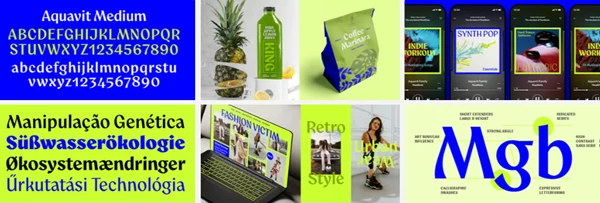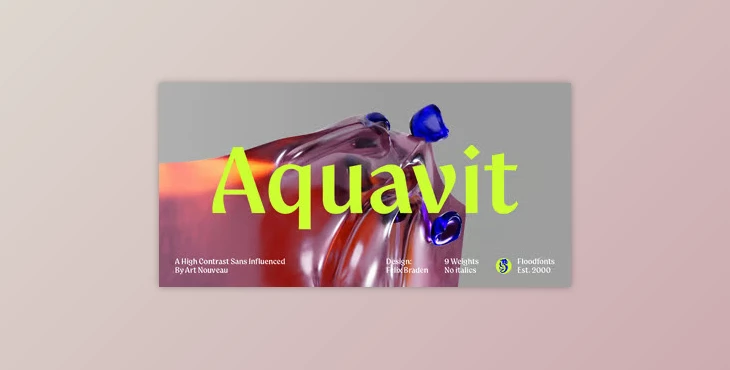
MyFonts - Aquavit Font Family:
Aquavit is the ideal display font family for brands that want to defy convention. A modern yet unexpected choice, Aquavit draws inspiration from the swirls of the Art Nouveau era and features a high-contrast sans serif. Therefore, it merges a contemporary, crisp and clean appearance with a vintage, nostalgic feel for an elegant, effective and hand-crafted experience.
In addition, the slightly top-heavy, quasi-calligraphy lends an air of grace and sophistication, making it perfect for any brand that offers luxurious lifestyle options. Whether in the beauty, fashion, jewelry, music, food and beverage, or home décor industry, this font family adds a subtle sense of self to any project that requires legitimacy to ensure your brand resonates with consumers for all the right reasons, boasting a contemporary style with a nostalgic finish.